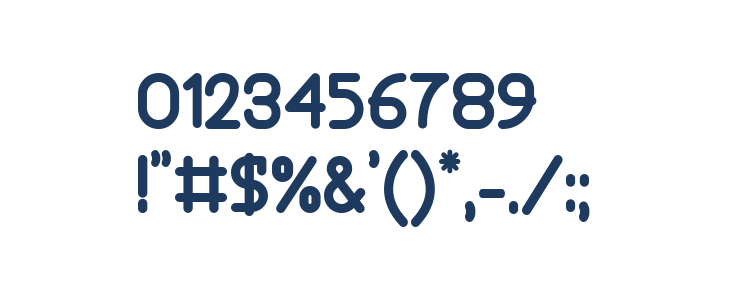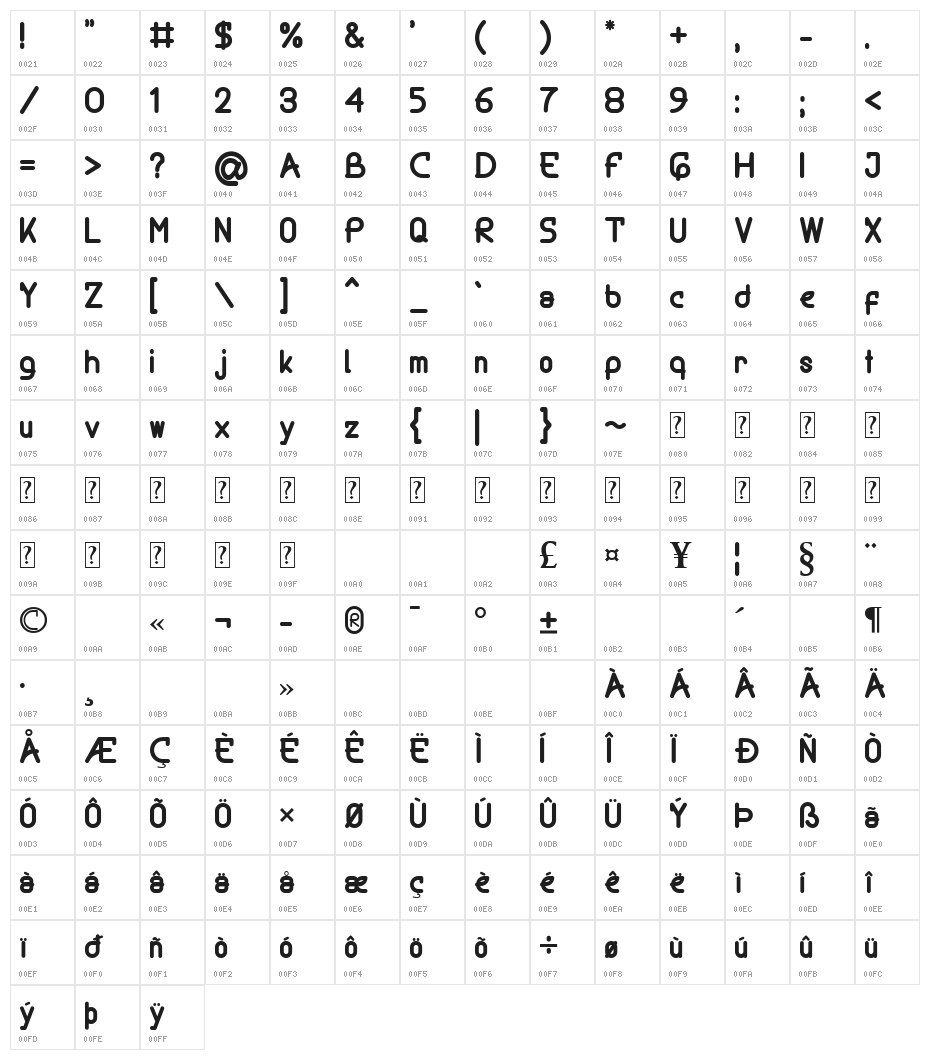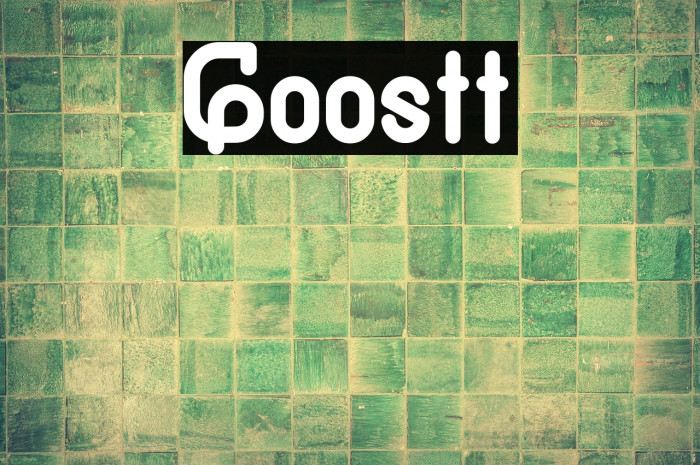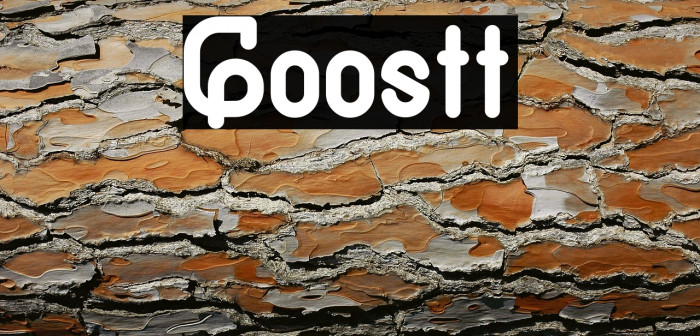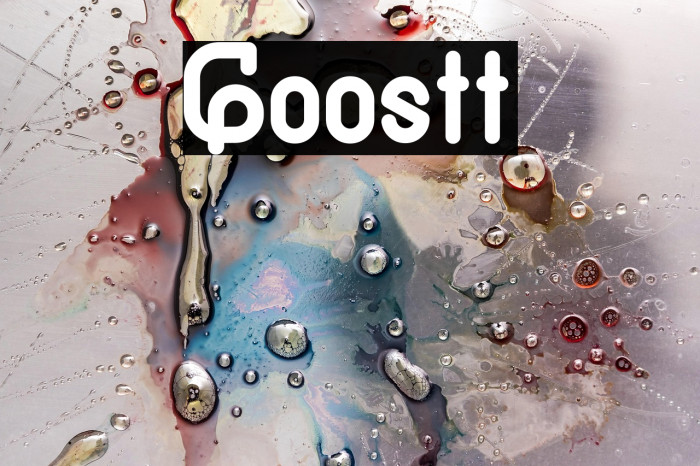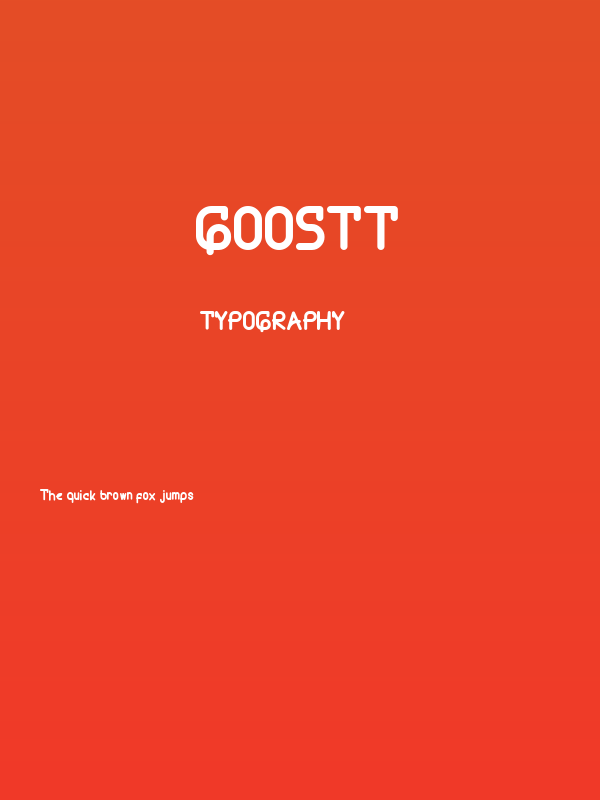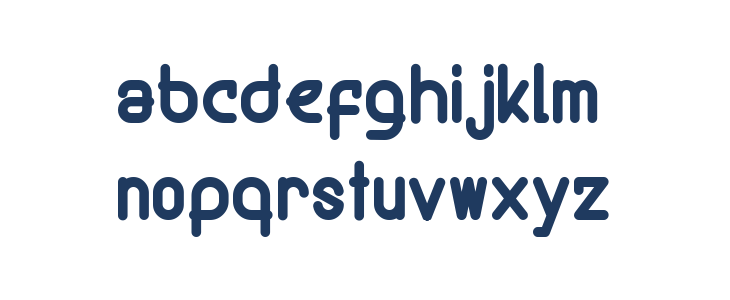
Goostt Font
Goostt Description
This font features a playful and rounded style, characterized by its smooth curves and uniform stroke width. The letters are bold and have a slightly condensed appearance, giving them a compact yet approachable look. The uppercase and lowercase letters maintain a consistent design, with rounded edges that contribute to a friendly and modern aesthetic. The numerals and special characters follow the same design principles, ensuring a cohesive appearance across all glyphs. This font's simplicity and readability make it suitable for a variety of applications, from branding to digital media.
| Width | Condensed |
| Use Case | Headlines, Logos, Branding |
| Proposed Projects | Ideal for branding, children's books, digital media, and playful design projects. |